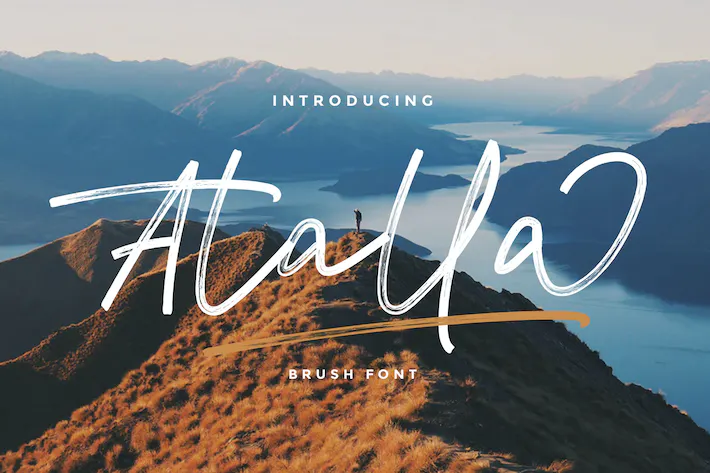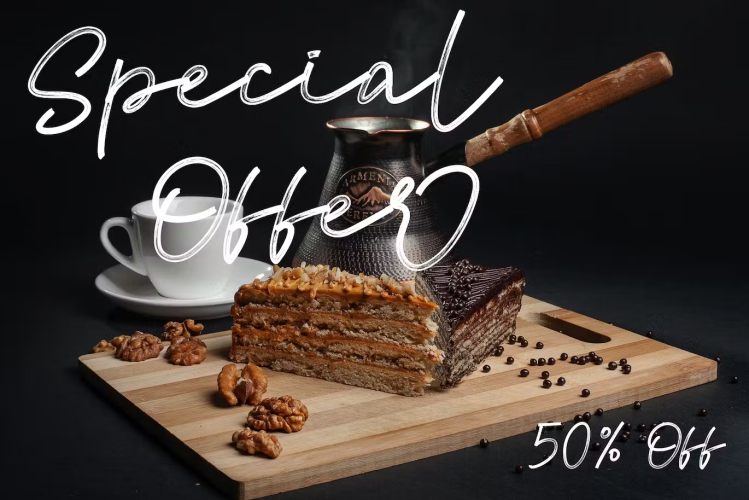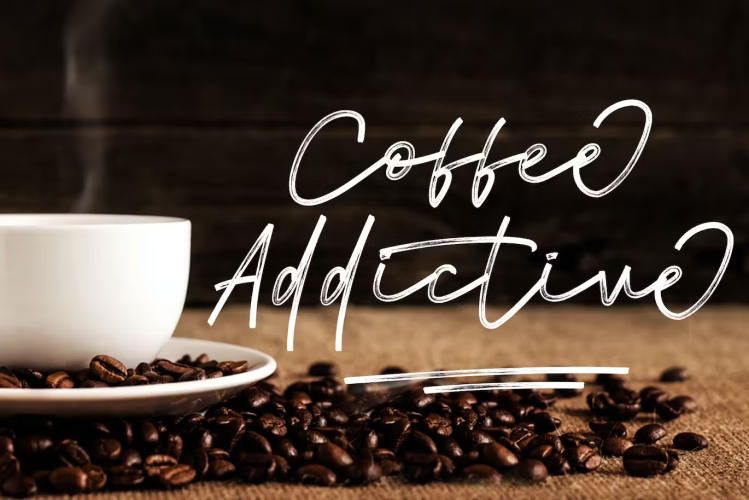
Atalla Font
Hi Ladies and Gentleman ! Proudly present Another styles brush font “Atalla”. This font is taken from Greek which means young, which can be interpreted professional. we keep this font looks classy, readable, stylish, catchy and easy to use. Atalla is the great choice for watermark on photography, signature or signature logo design, quotes, album cover, business card and many other design project. Atalla is here to make your work to high level!!!
Atalla Font is a Brush Fonts font that brings a professional and versatile look to your projects. Hi Ladies and Gentleman ! Proudly present Another styles brush font “Atalla”.